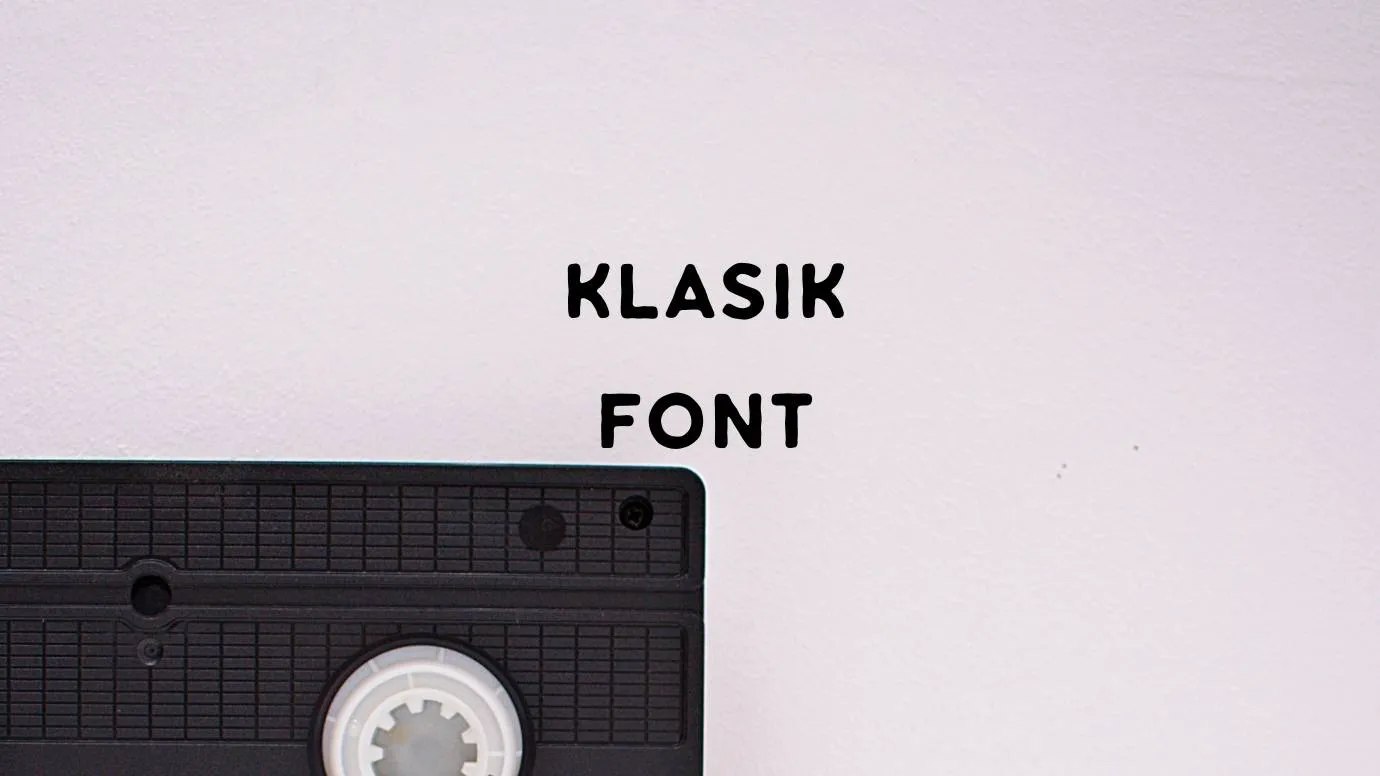
Klasik Font Family is a very stunning and household typeface that comes in the category of a sans-serif typeface family. A complete font package with having 3 styles and weights including Regular, Rough, and Shadow.
Each style has interesting bold characters including uppercase, lowercase, numbers, general punctuations, symbols, icons, stylistic alternates, ligatures, different languages characters, swashes, and many special characters too.
Klasik Font Family